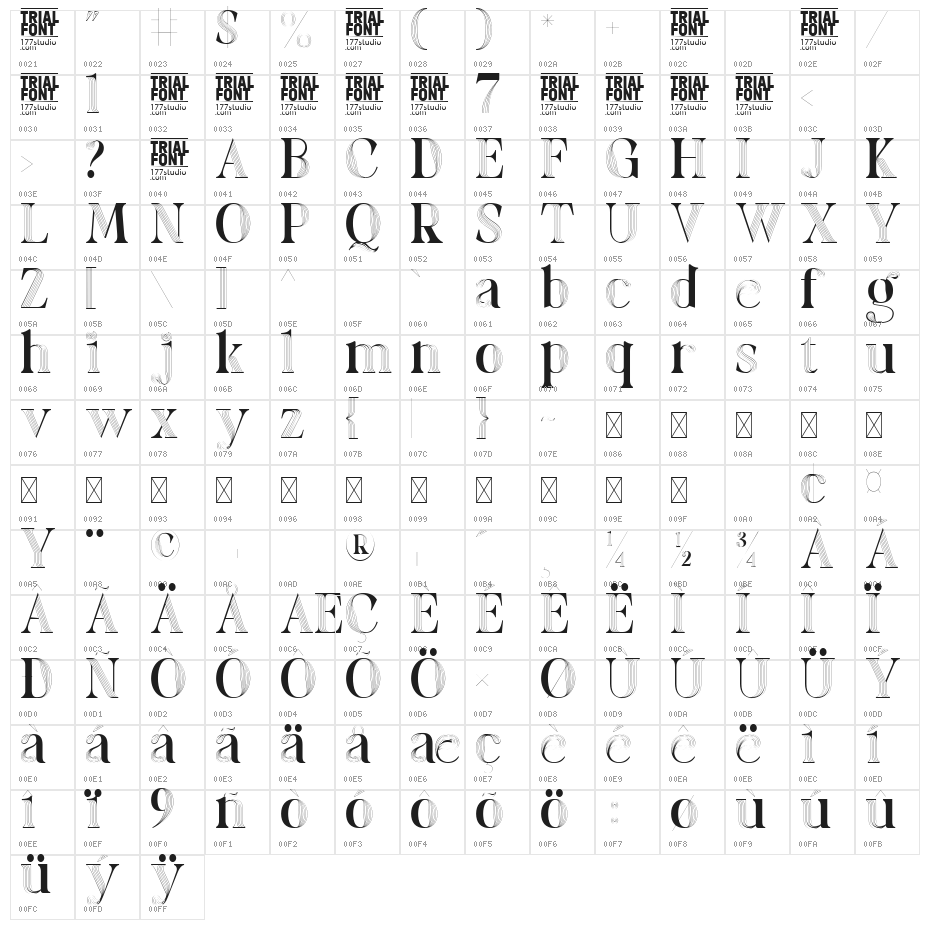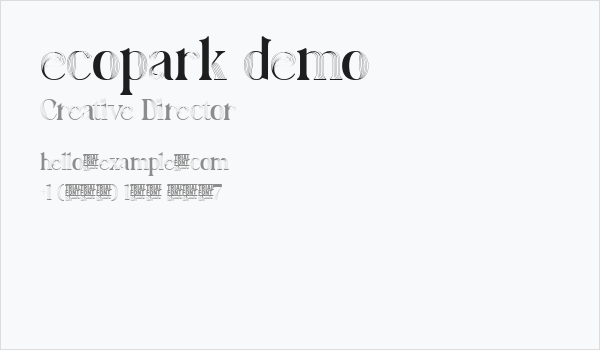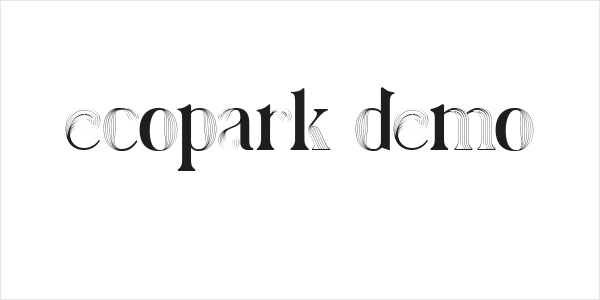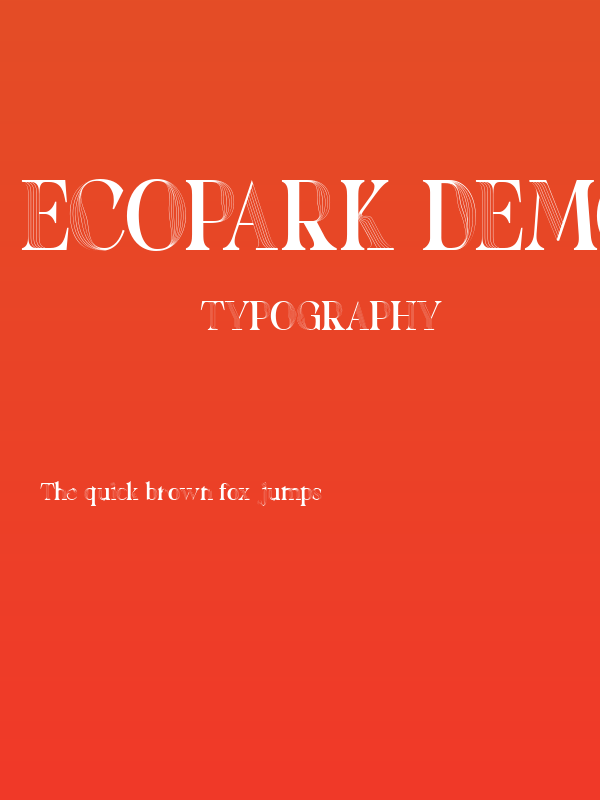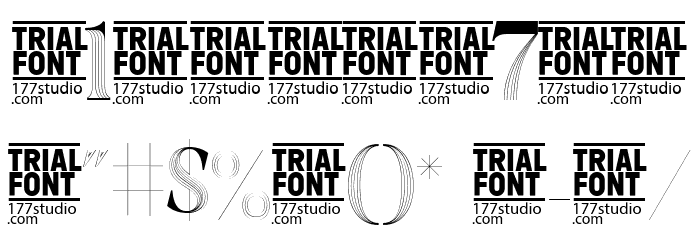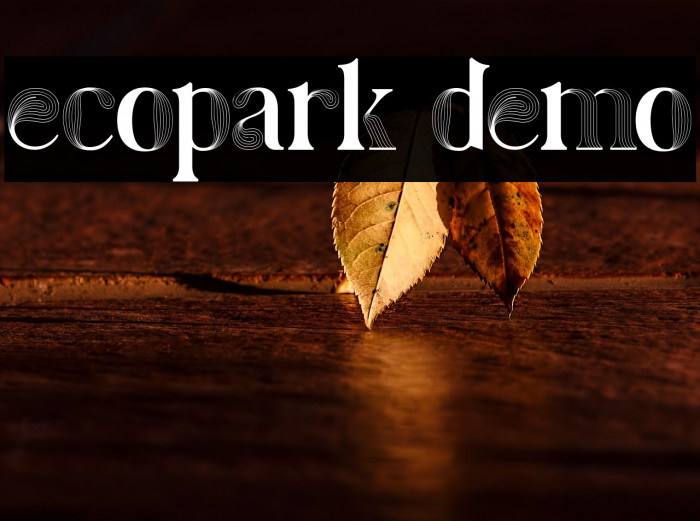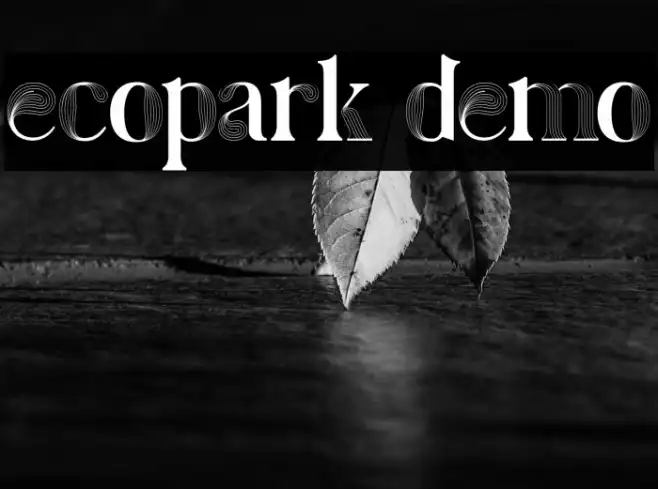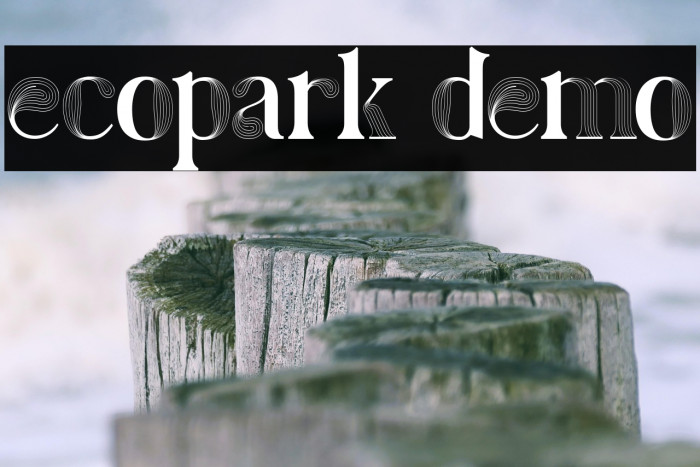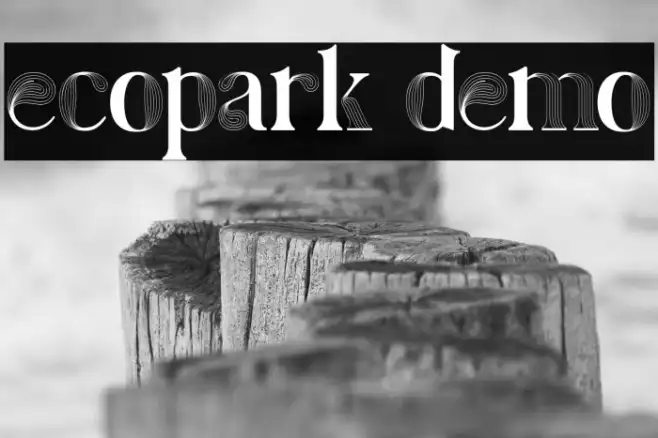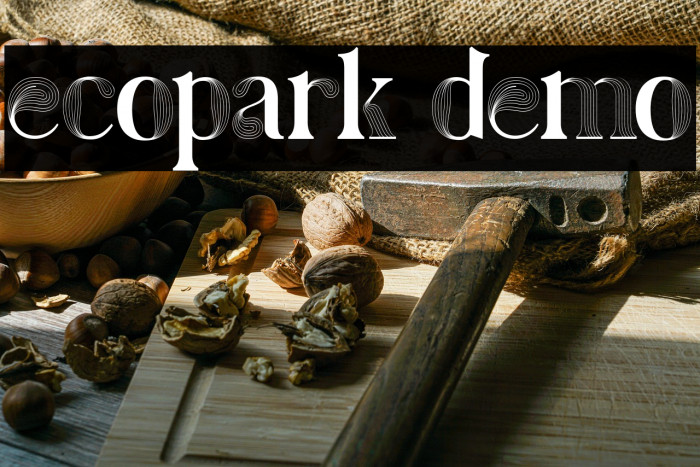
ecopark demo Font
ecopark demo Description
This font features a unique blend of classic and modern elements, characterized by its bold, decorative style. The uppercase letters exhibit a strong presence with thick vertical strokes and intricate line detailing that adds a sense of depth and texture. The lowercase letters maintain this decorative flair, with elegant curves and a consistent stroke weight that ensures readability. The numerals and special characters follow the same design principles, making them visually cohesive with the alphabet. This font's distinct style makes it suitable for creative projects that require a touch of sophistication and flair.
| Overall Style | Modern Decorative |
| Proposed Projects | Ideal for branding, poster design, headlines, and any project that requires a striking visual impact. |